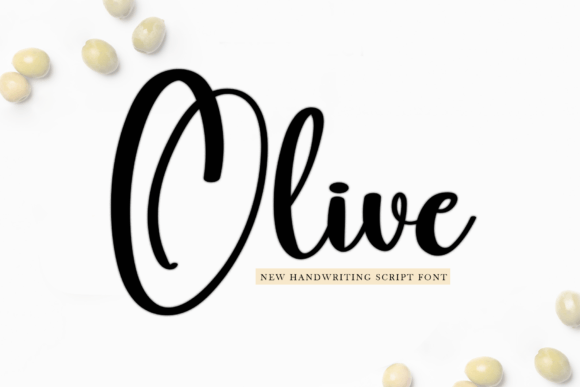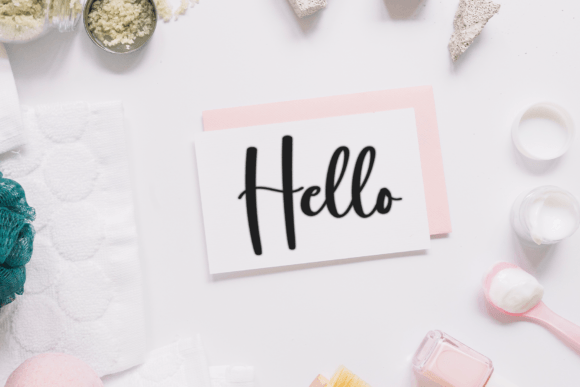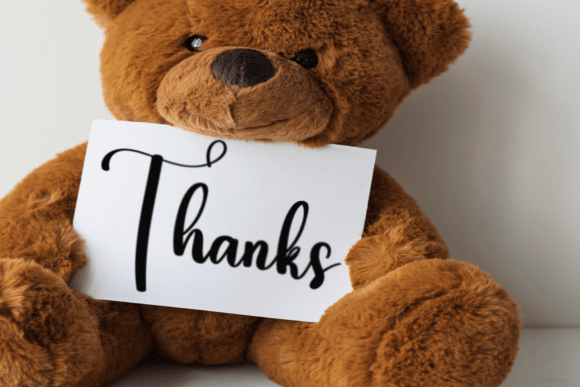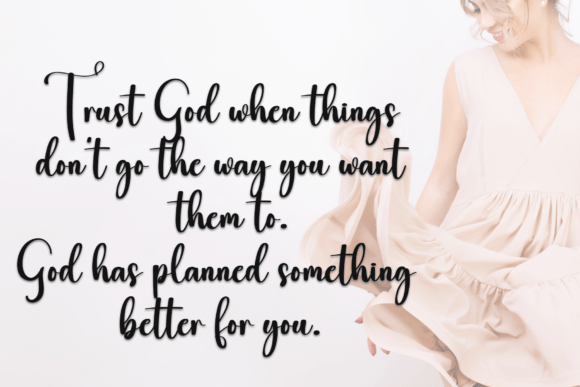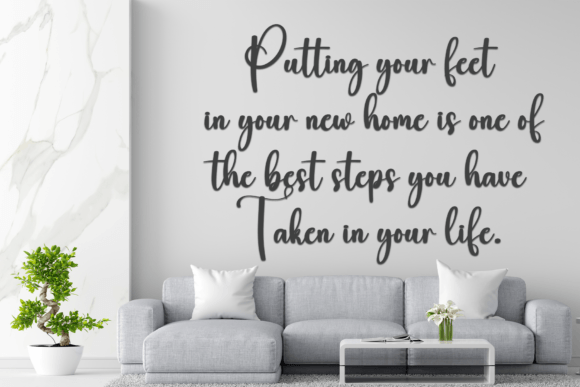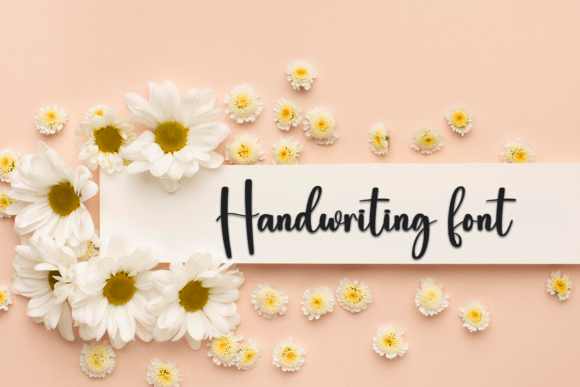
Olive Font
About Olive Font
**Olive: A Unique and Round-Edged Handwritten Font**
Introducing **Olive**, a distinctive handwritten font featuring rounded letterforms that have been meticulously crafted to achieve the desired results. This font offers a unique aesthetic that is versatile and suitable for various applications, including titles, invitations, letters, and a wide range of creative projects.
**Olive** stands out with its one-of-a-kind round-edged letterforms. This distinctive design element adds a sense of character and originality to your typography, making it a standout choice for projects that demand a unique and memorable look.
Whether you’re using it for titles, invitations, letters, or any other type of product, **Olive** brings a fresh and innovative twist to your text. Its versatility ensures that it can adapt to various styles and design concepts.
In essence, **Olive** is more than just a font; it’s a creative tool that allows you to infuse your projects with a distinctive round-edged aesthetic. Whether you’re crafting titles, invitations, or other textual elements, choose **Olive** to give your work a unique and memorable flair. Embrace its originality and let your creativity shine.